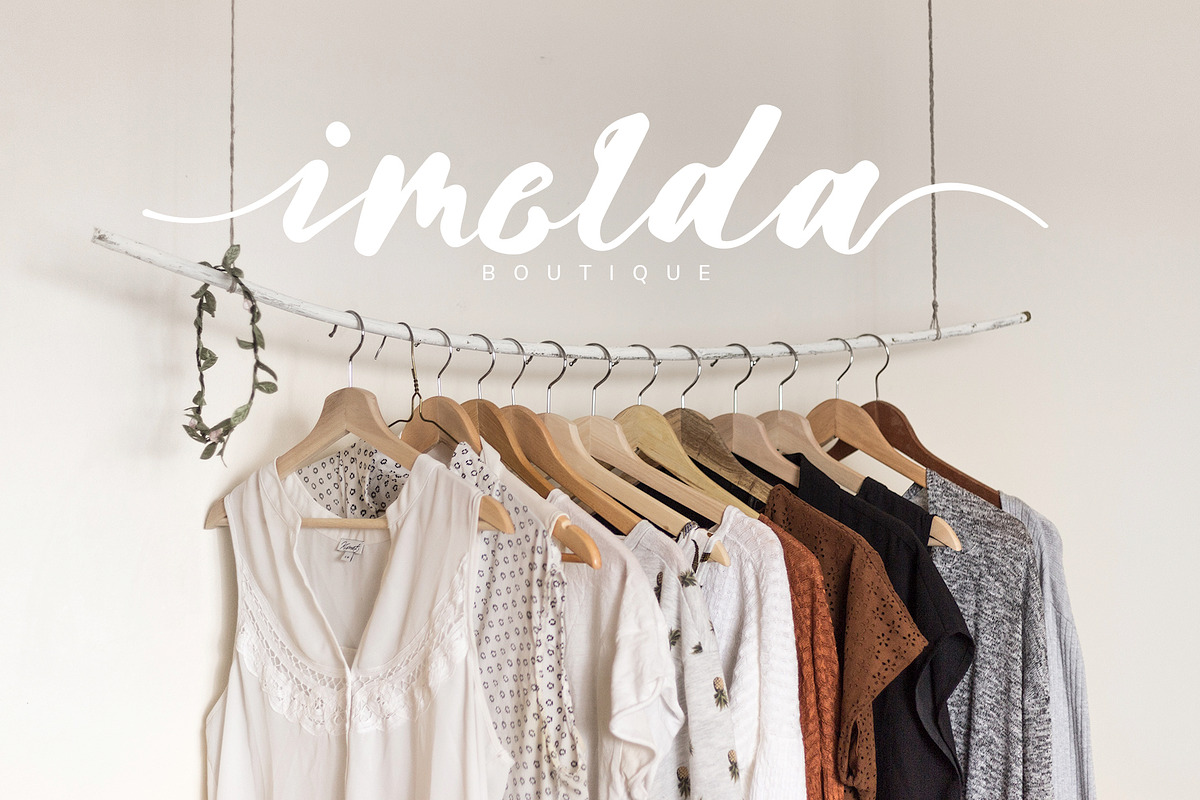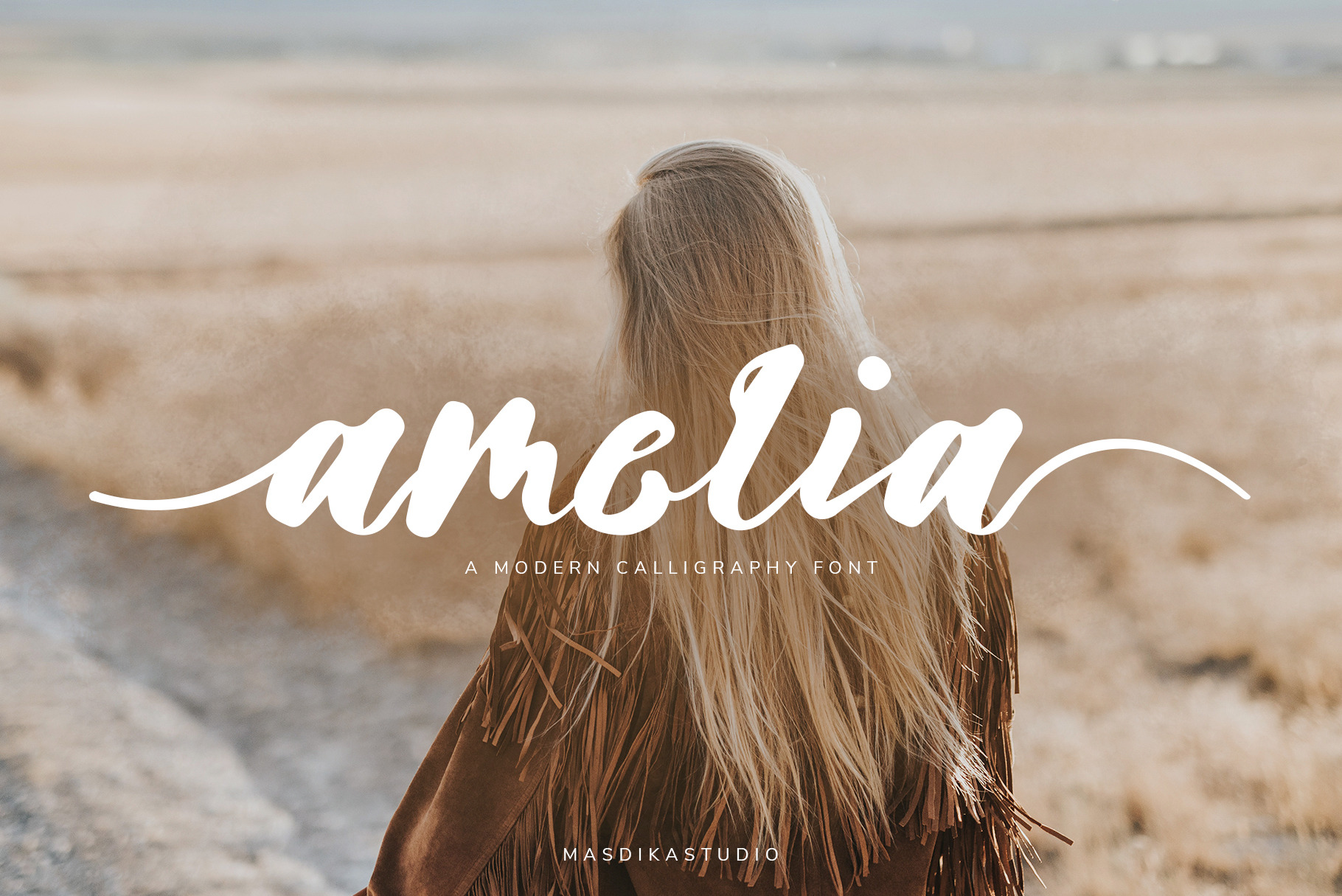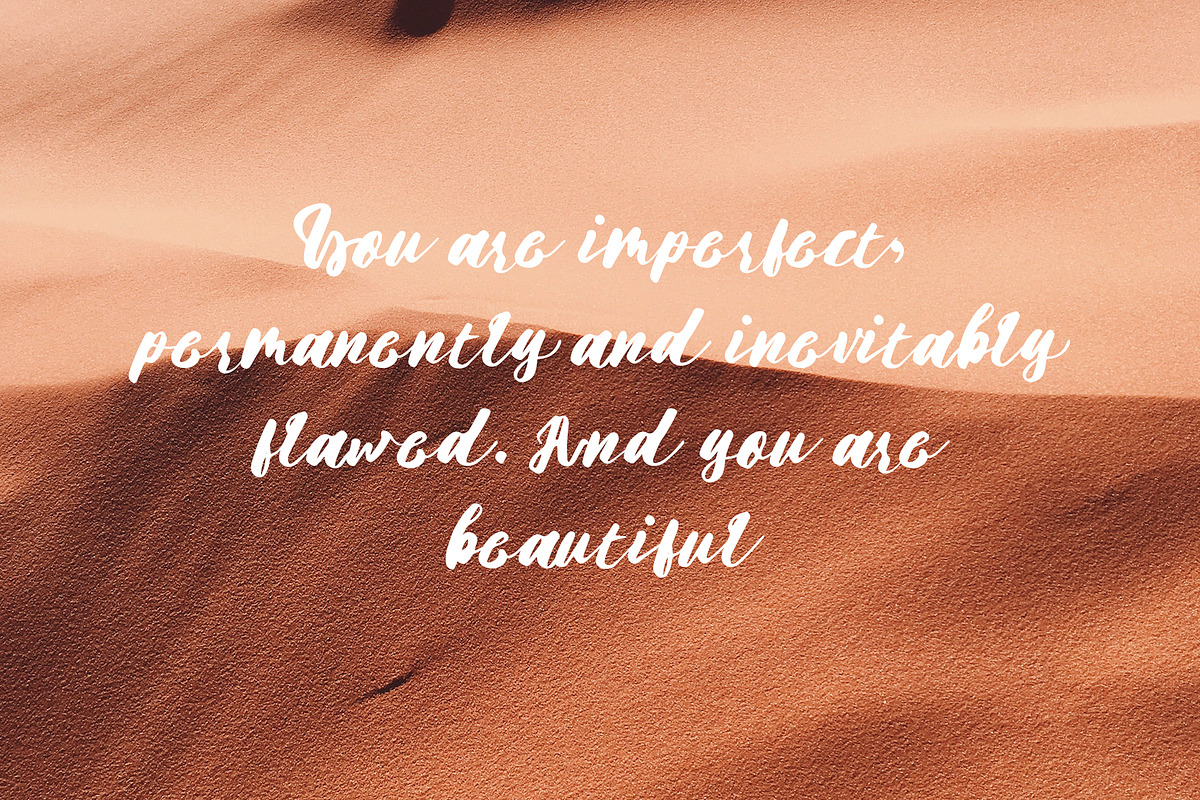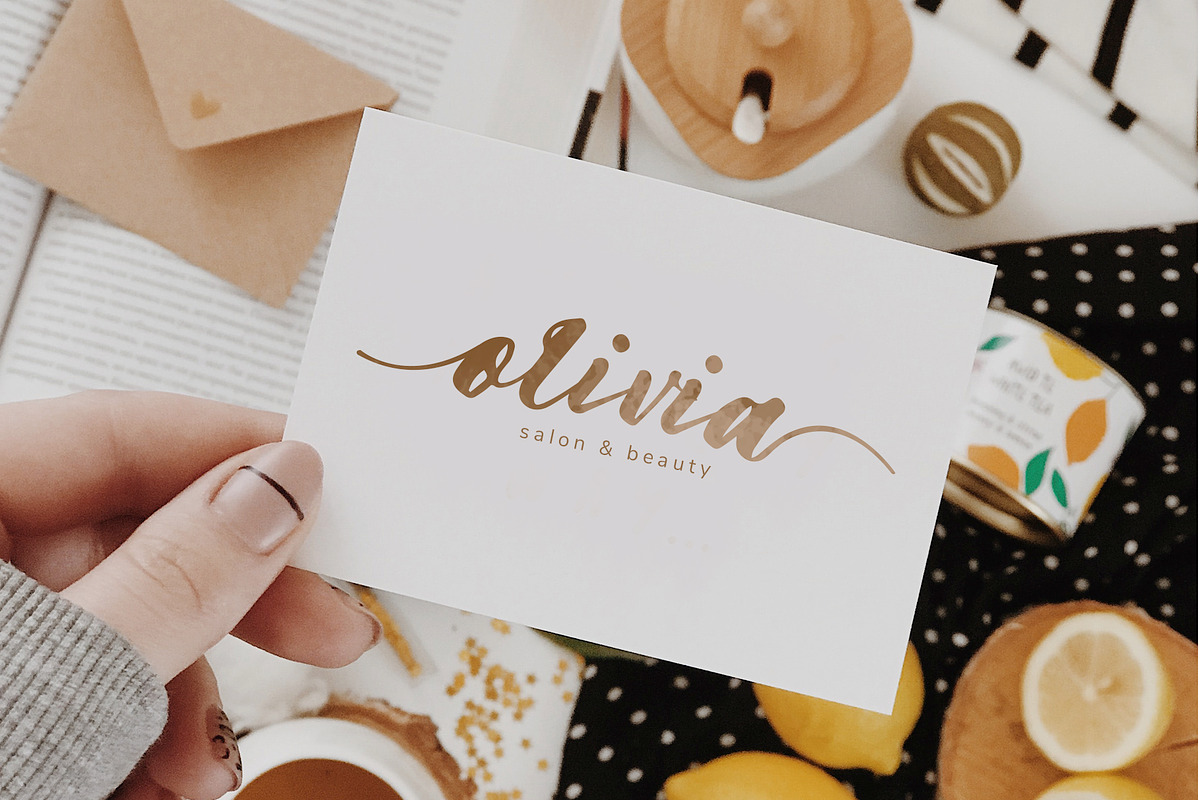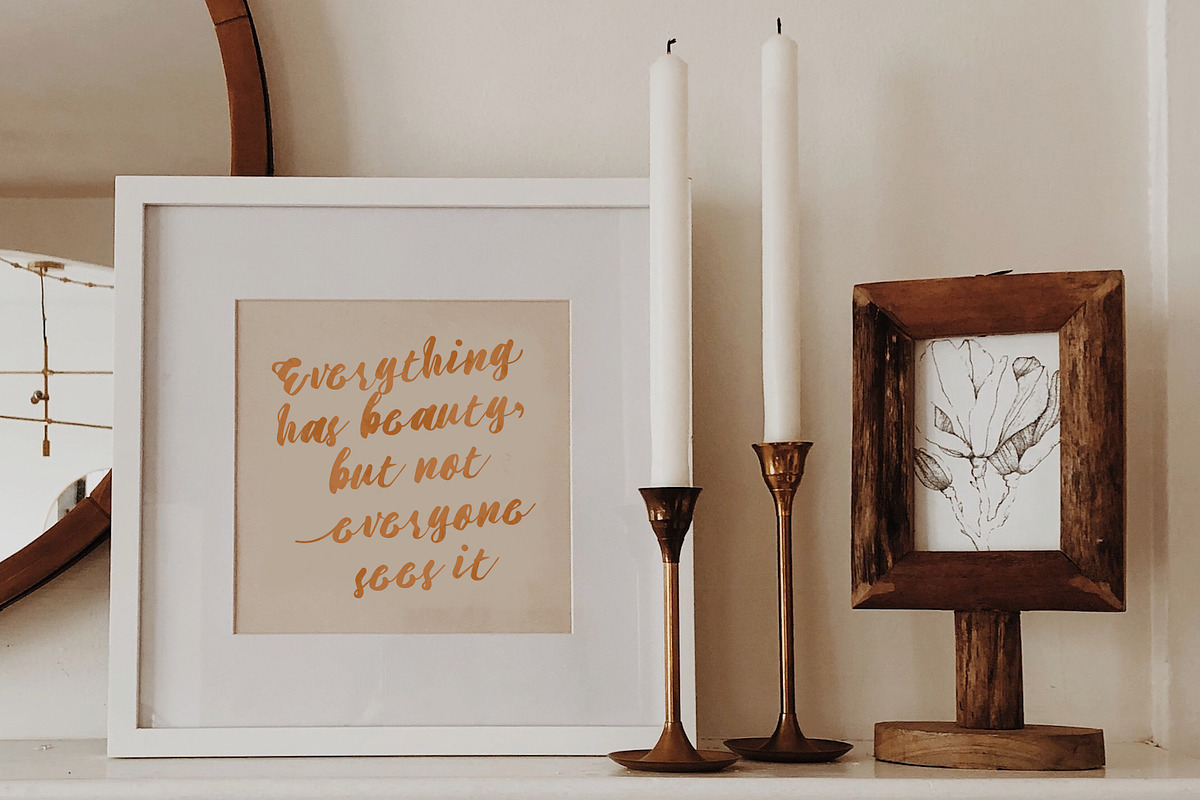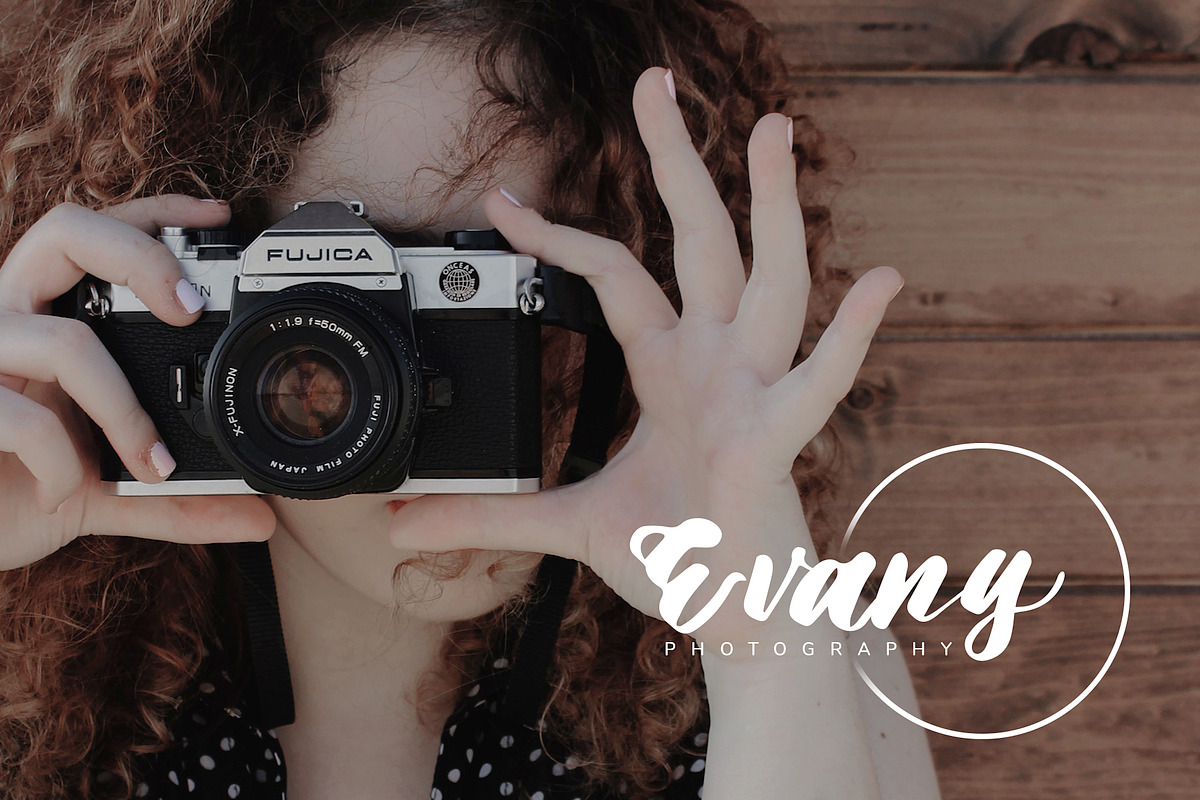
Amelia Modern Calligraphy Font
Meet amelia This is modern Calligraphy script font with sophisticated flows.
amelia font is perfect used for photography, watermark, social media posts, advertisements, logos & branding, invitation, product designs, label, stationery, wedding designs, product packaging, special events or anything that need handwriting taste.
- strongamelia (OTF/TTF)/strong - Handwritten containing upper & lowercase characters, full set of punctuation and numerals, with opentype features with stylistic alternates and ligatures.
- Ton of glyphs (include Uppercase, Lowercase, Numerals & Punctuations)
- More Ligature